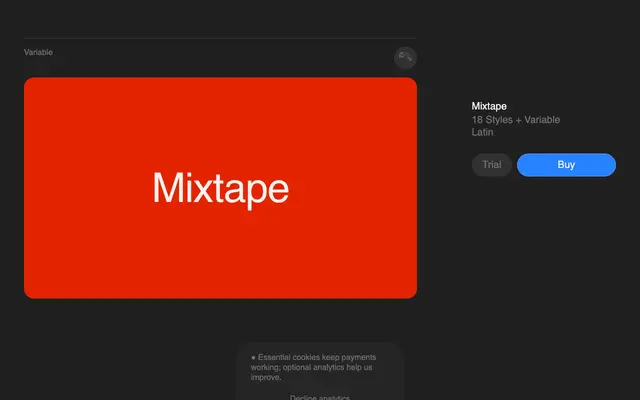
Mixtape
Superior Type · Rostislav Vaněk · 2008
A geometric sans-serif with Bauhaus roots designed for practical text use, available across 18 styles and a variable axis.
Originating in 2008, Mixtape draws on Bauhaus and avant-garde principles while positioning itself as a workhorse text family rather than a historical revival. Futura is acknowledged as a reference point, but the family stakes out its own ground with nine weights from Thin to Black, each with a matching italic, plus variable font support. Coverage extends to 302 languages across the Latin script, and OpenType features include oldstyle figures, fractions and stylistic alternates.
Mixtape is rooted in Bauhaus and avant-garde principles with Futura as a historical reference point, placing it firmly in the geometric sans-serif tradition, though the designer distinguishes it as a practical text-oriented family rather than a strict geometric revival.